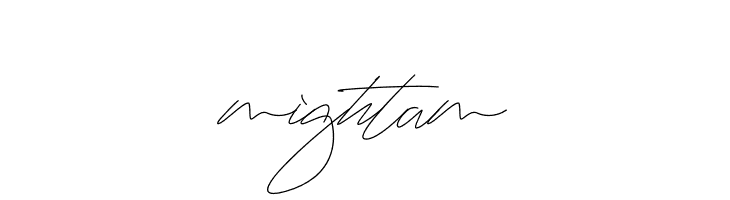
A sophisticated cursive script with elegant, flowing strokes and ornate flourishes.
A modern, handwritten font with elegant, flowing lines and a cursive-like appearance.
An elegant and decorative script font with modern swashes and artistic flair.
A graceful and elegant script font with flowing, cursive letterforms.